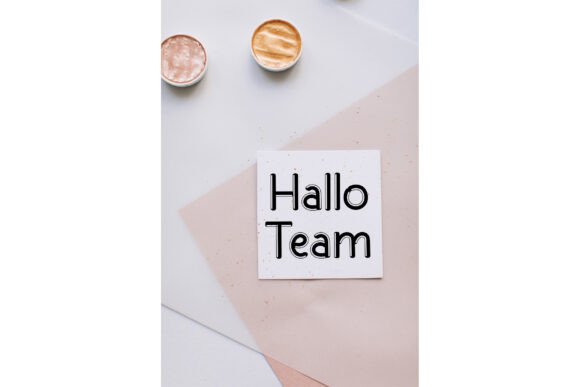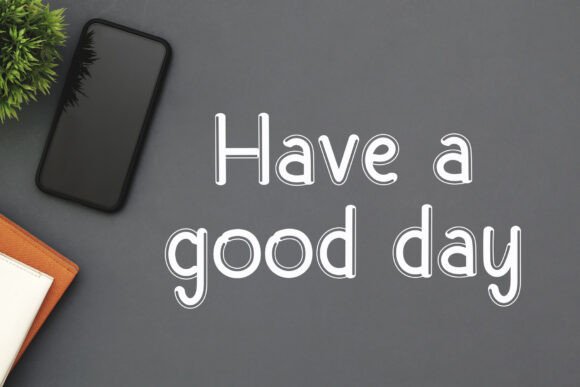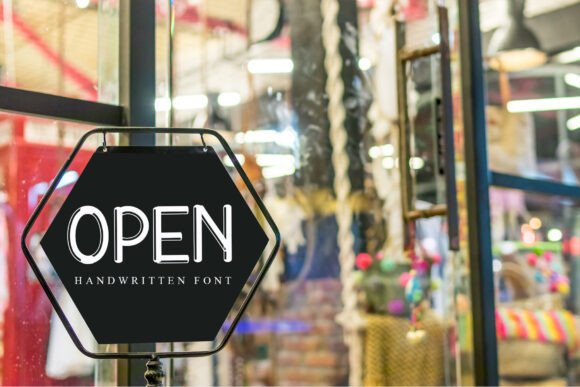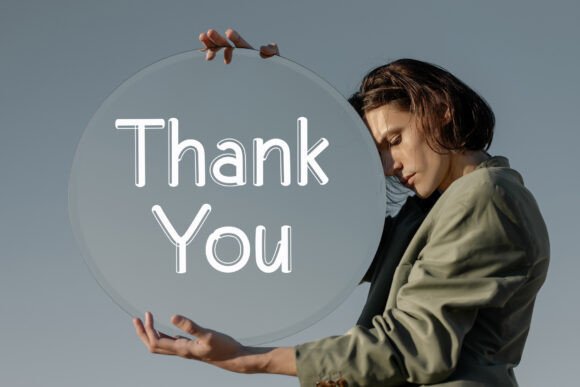
Introducing Abhil Font: Elevate Your Designs with Elegance
In the world of design, fonts play a pivotal role in conveying messages, evoking emotions, and adding personality to your projects. Whether you’re a professional designer, a crafty DIY enthusiast, or a student working on a school assignment, the right font can make all the difference. This is where Abhil Font comes into play – a unique and elegant typeface designed to add a touch of sophistication to your creations.
What Makes Abhil Font Special?
Abhil Font is not just another font; it’s a carefully crafted typeface made with a professional hand touch. This meticulous attention to detail ensures that each letterform is not only aesthetically pleasing but also highly legible. The result is a font that exudes elegance and refinement, making it perfect for a wide range of applications.
Perfect for Your Projects
Whether you’re working on a wedding invitation card, a birthday greeting, or any other type of party invitation, Abhil Font is an excellent choice. Its versatility and charm make it suitable for various design projects, including:
• Wedding invitation cards: Add a touch of romance and sophistication to your wedding invites.
• Birthday cards: Make birthdays even more special with personalized and elegant greetings.
• Party invitations: Whether it’s a graduation party, a baby shower, or a holiday gathering, Abhil Font sets the tone for a memorable event.
• School assignments: Elevate your school projects and assignments with a font that showcases your creativity and professionalism.
Unleash Your Creativity
Abhil Font is more than just a typeface; it’s a tool for creativity. Its elegant design and versatility make it an excellent choice for designers looking to add a unique touch to their work. Whether you’re creating a logo, a poster, or a digital graphic, Abhil Font can help you achieve your design goals.
Accessible and Convenient
One of the best features of Abhil Font is its accessibility. It comes with all glyphs, ensuring that you have everything you need to create stunning designs without any additional applications. This convenience saves you time and effort, allowing you to focus on the creative aspects of your project.
Why Choose Abhil Font?
With so many fonts available, why choose Abhil Font? Here are a few compelling reasons:
• Unique and Elegant: Abhil Font offers a distinctive and refined look that sets it apart from more common typefaces.
• Professional Quality: Designed with a professional hand touch, this font meets the standards of high-end design.
• Versatile: Suitable for a wide range of projects, from personal to professional.
• Easy to Use: With all glyphs included, Abhil Font is convenient and easy to integrate into your designs.
Abhil Font is a unique and elegant typeface that can elevate your designs to new heights. Its professional quality, versatility, and accessibility make it an excellent choice for designers, crafters, and students alike. Whether you’re working on a wedding invitation, a school project, or a creative endeavor, Abhil Font is sure to add a touch of sophistication and elegance. So why wait? Download Abhil Font today and discover the difference it can make in your designs.